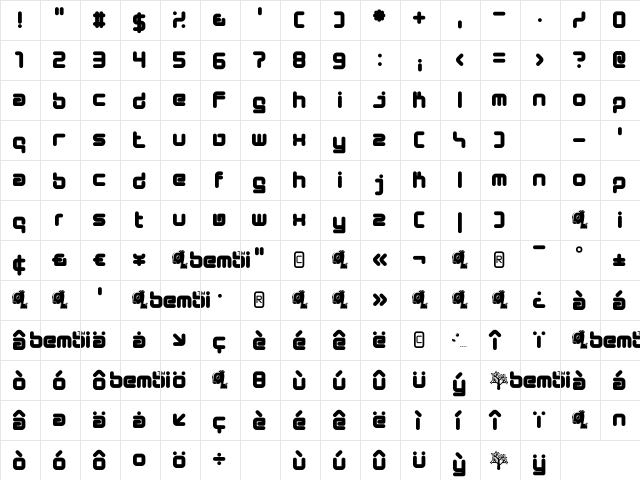
DS Bembi Regular Font Preview
DS Bembi Regular
Design Context for DS Bembi Typeface
DS Bembi is a composed and adaptable typeface that performs quietly and consistently across a wide range of design contexts.